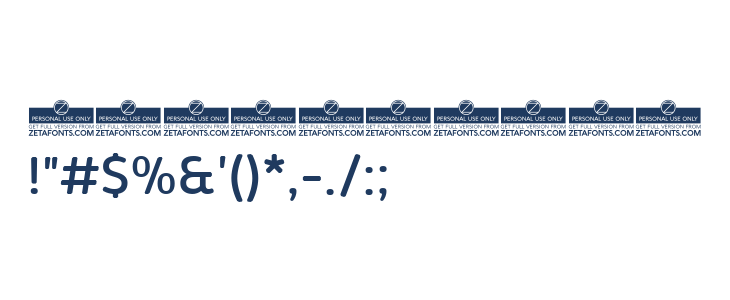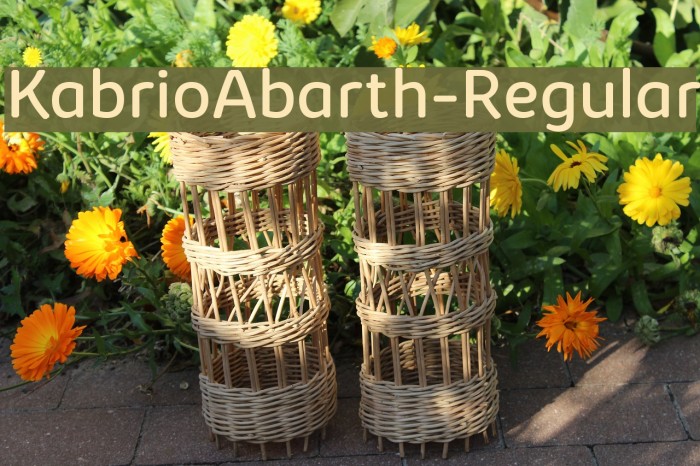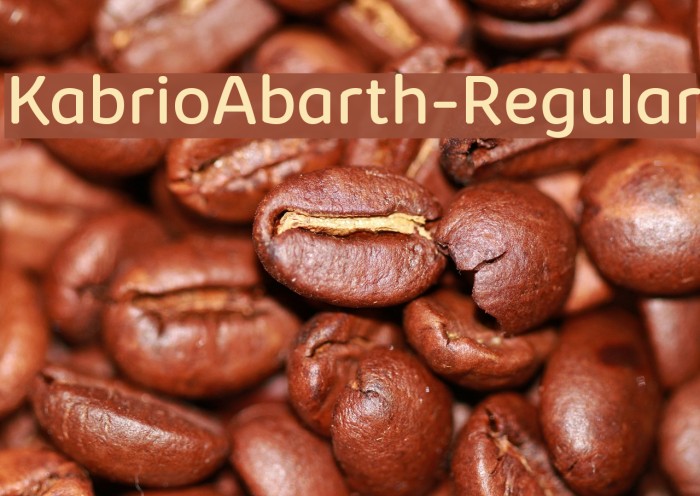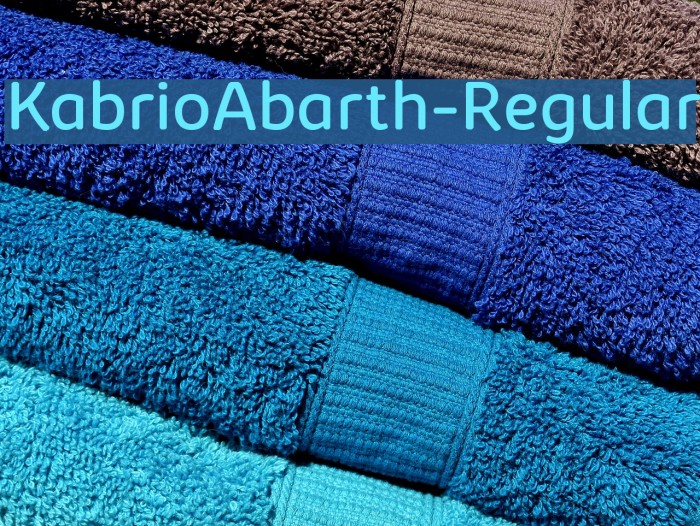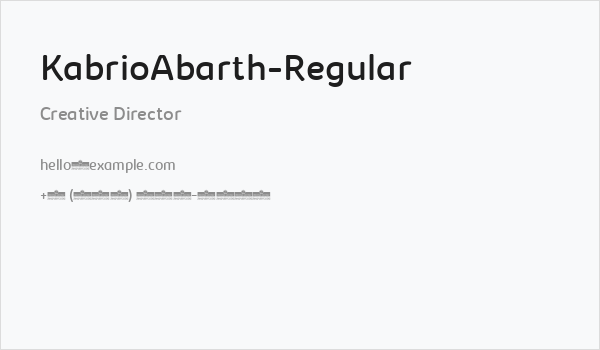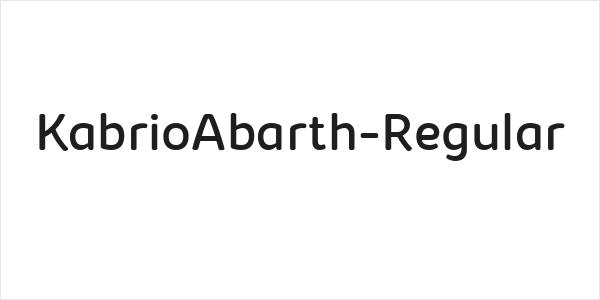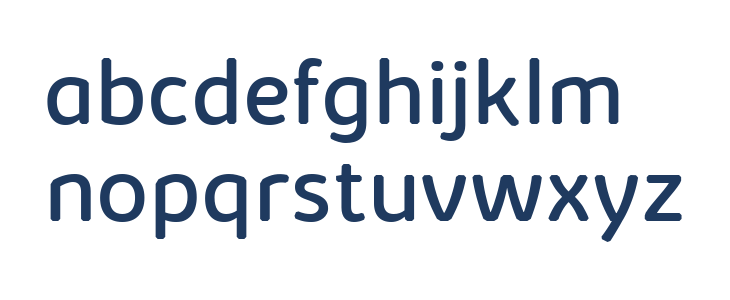
KabrioAbarth-Regular Font
KabrioAbarth-Regular Description
This font features a clean and modern sans-serif design with rounded edges that give it a friendly and approachable appearance. The characters are evenly spaced, providing a balanced and harmonious look. The uppercase and lowercase letters maintain a consistent style, with smooth curves and a uniform stroke width that enhances readability. The numerals and special characters are designed to complement the alphabet, ensuring versatility across various applications. Its simplicity and clarity make it suitable for both digital and print media.
Proposed ProjectsIdeal for branding, web design, user interfaces, and educational materials due to its readability and modern aesthetic.